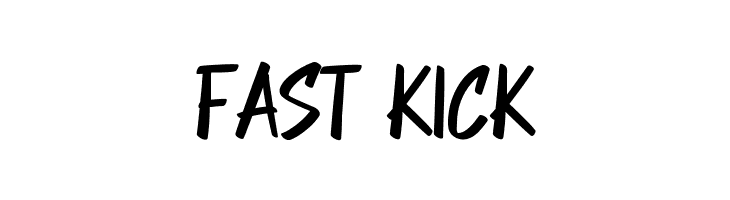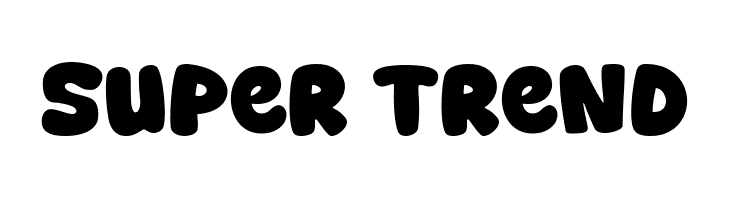
A bold, left-slanted font with a modern and dynamic style.
A playful, cursive font with flowing, interconnected strokes and a whimsical charm.
A bold, distressed font with a rugged, vintage look.
A playful, hand-drawn font with rounded, friendly characters.
An ornate, decorative font with intricate, framed letters.
Handwritten cursive script font.
Hand-drawn doodle font with cartoon faces for each character.